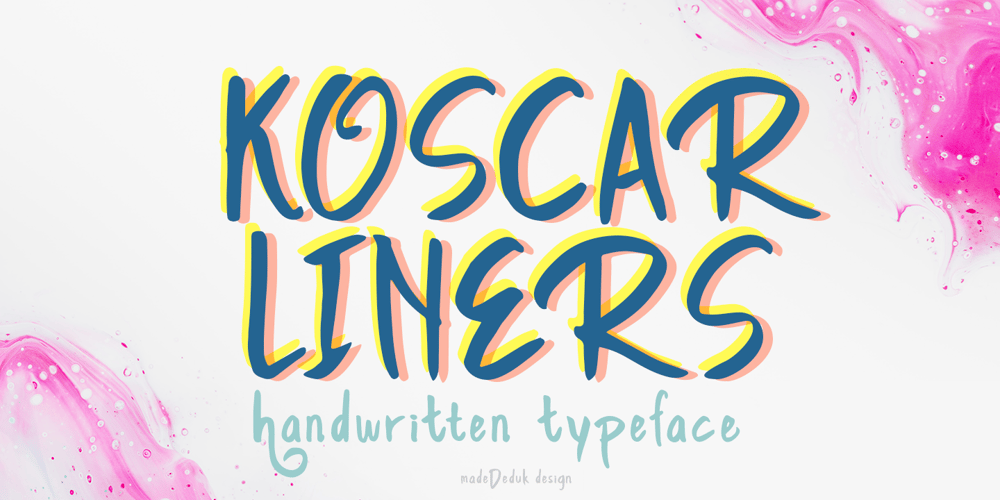
Koscar Liners
Koscar Liners font
Koscar Liners Font Family was designed by madededuk and published by madeDeduk. Koscar Liners contains 1 styles and family package options. Introducing Koscar Liners is a realistic handwritten font and will be perfect for book, title branding, product packaging, invitation, quotes, label, poster, logo etc.Feature Uppercase & Lowercase Number & Symbol International Glyphs Multilingual support Alternative Ligature Thanks so much for checking out my shop and feel free to drop us a message any time and follow my shop for upcoming updatesHope you enjoy it.